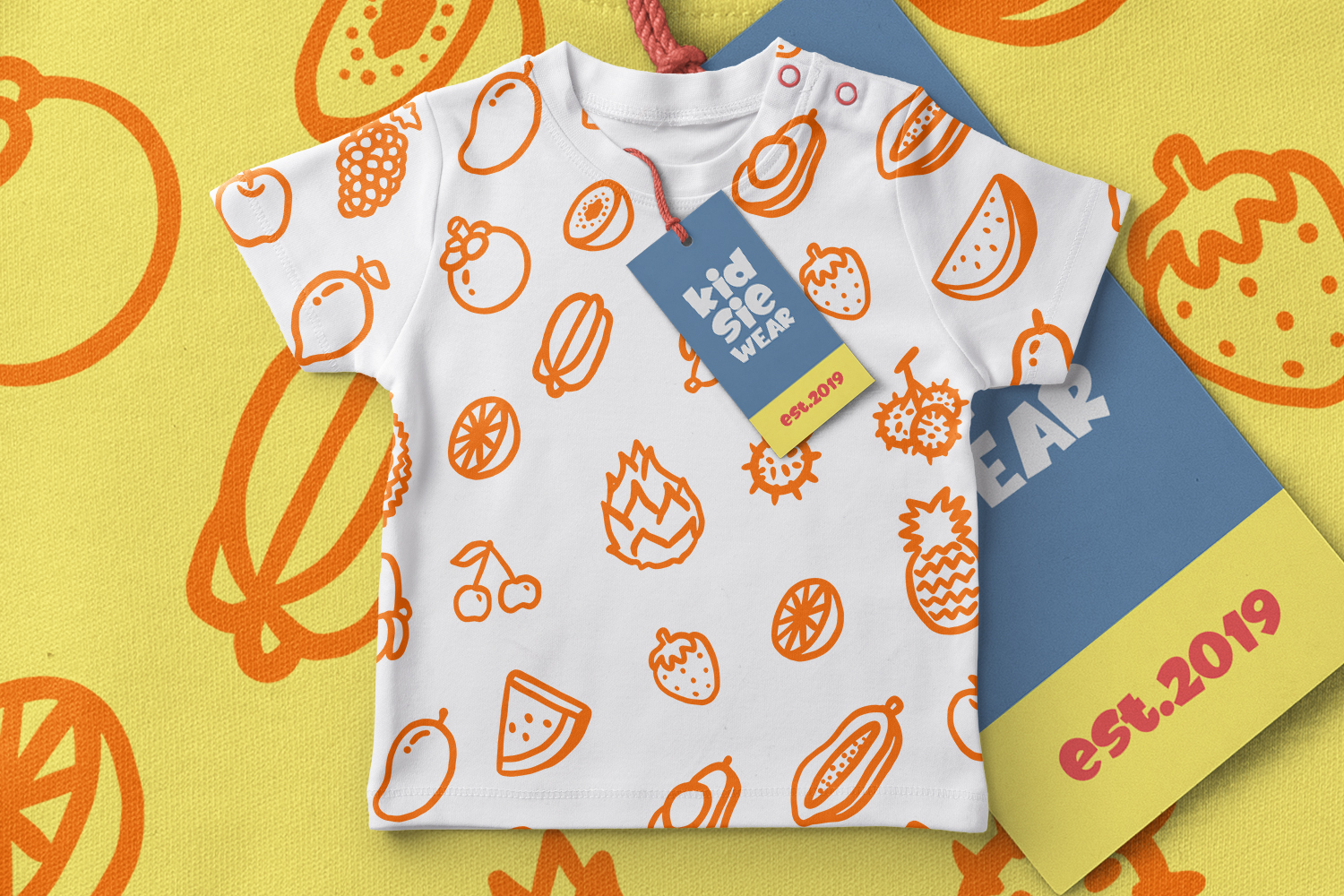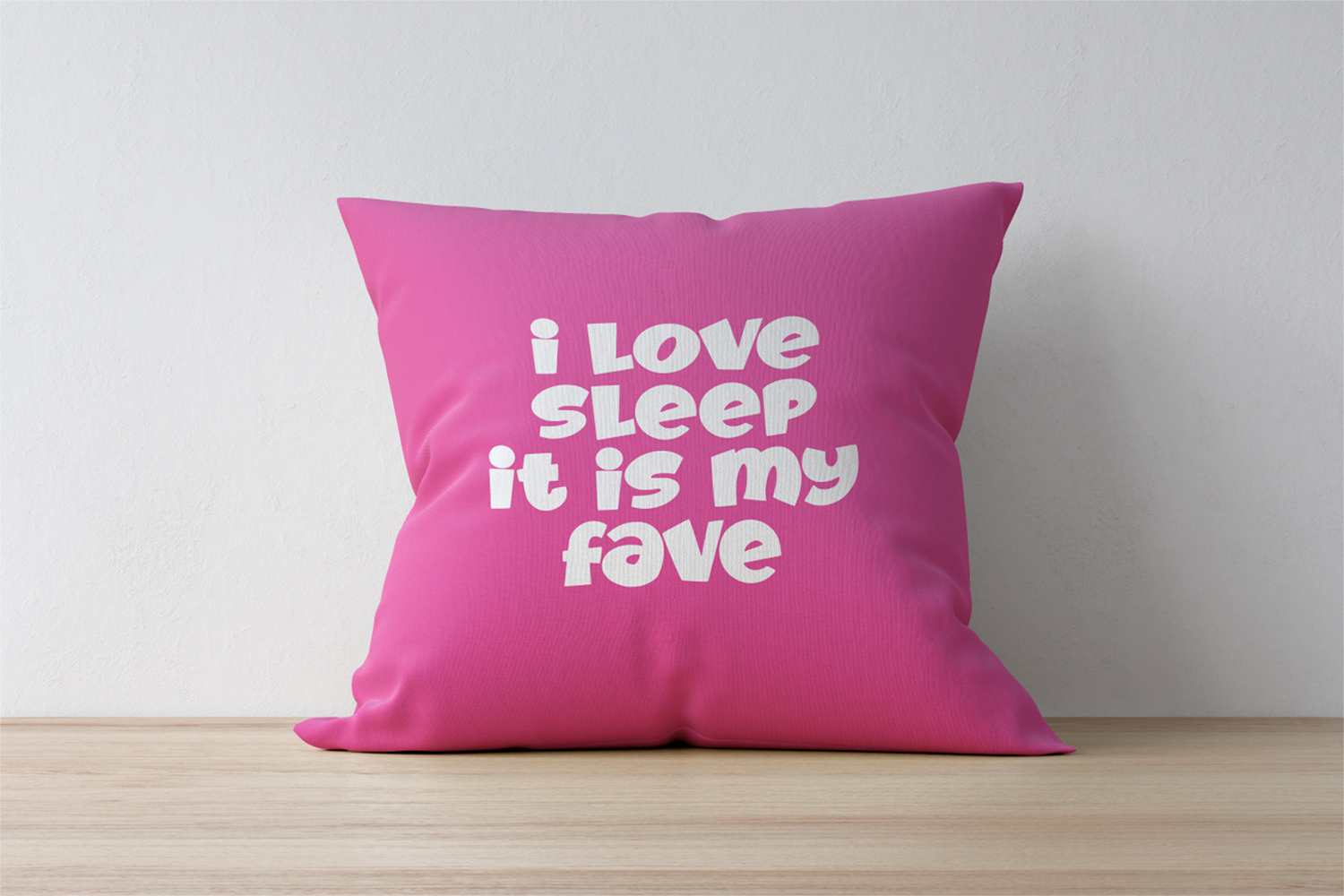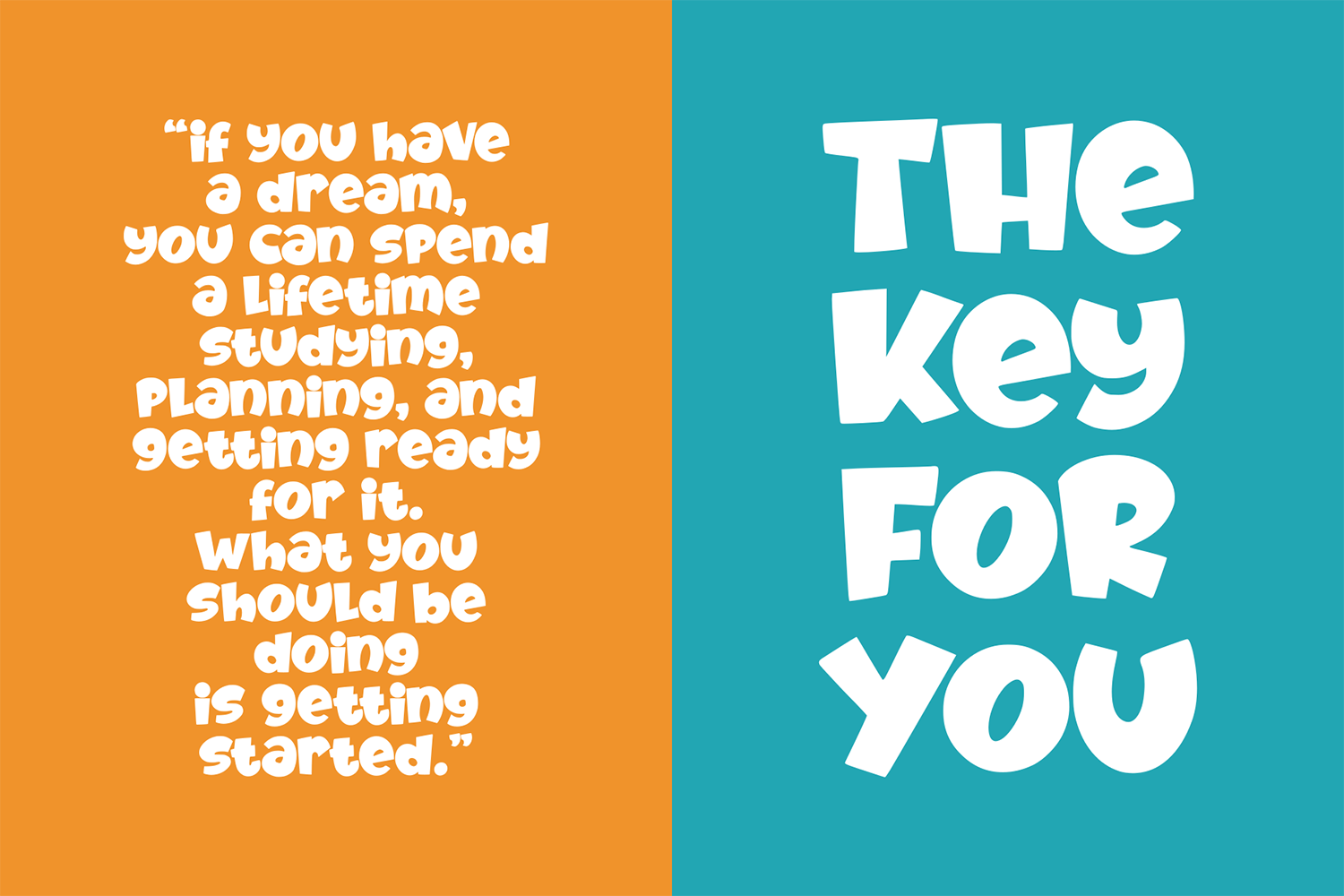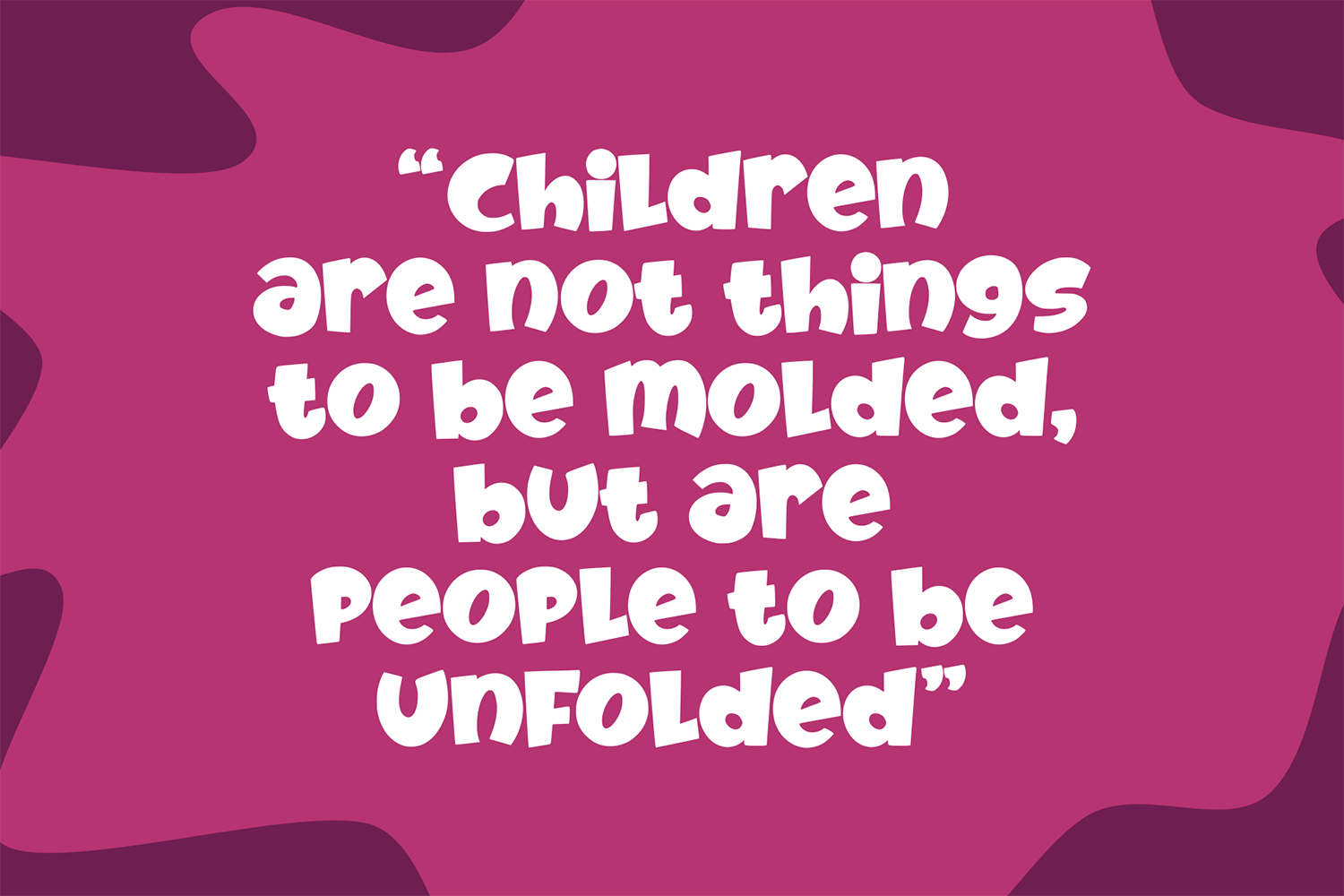
Fruitz Free Font
Fruitz Free Font is great for apparel, branding, logo, magazine, quotes, packaging, advertising, and more, that need a cheerful feel. It came with uppercase, lowercase, punctuations, symbols & numerals. Also, support multilingual and already PUA encoded. This free typeface was designed by the talented Abo Daniel. If you like it don’t forget to check out the full version.